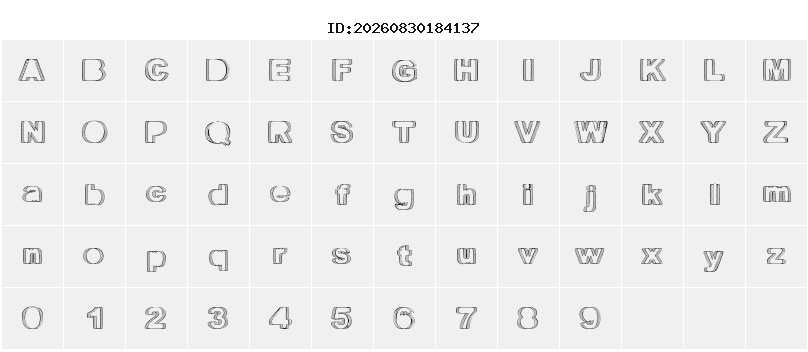
Territorio Preview
About Territorio.ttf
Territorio.ttf is a modern, elegant sans-serif font designed for ultimate readability and visual harmony. Perfect for branding, headlines, web design, and print materials.